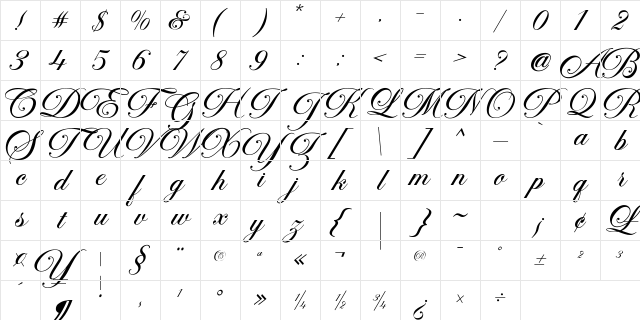
Tempting Regular
Foundry: RGB Studio
Designer: MOH. MA'IN
Design Context for Tempting
Tempting is a composed and adaptable typeface that performs quietly and consistently across a wide range of design contexts.